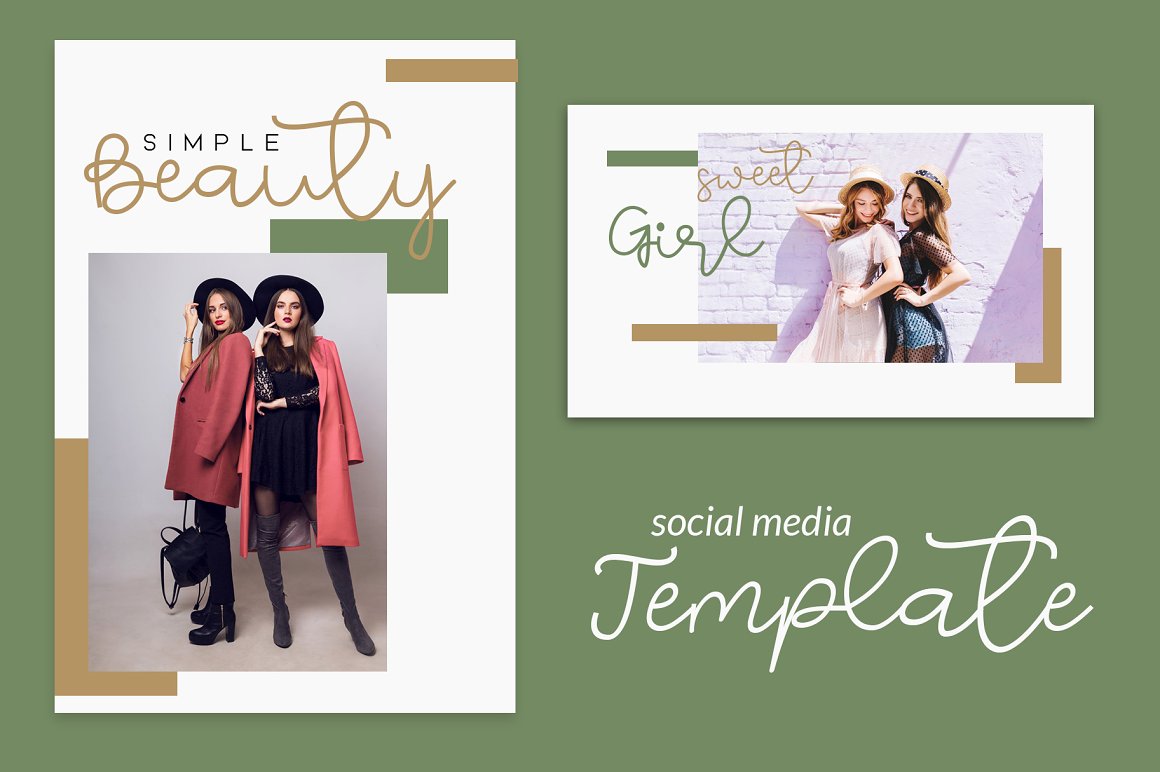
Rain Forest Font
Rain Forest Script Font
This is for any typhography needed, designed to combine perfectly and allow you to create stunning hand-lettering quickly and easily. Ideal for logos, handwritten quotes, product packaging, header, poster, merchandise, social media & greeting cards and more.